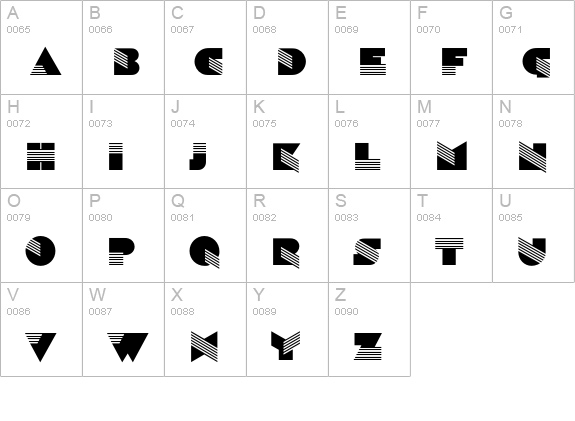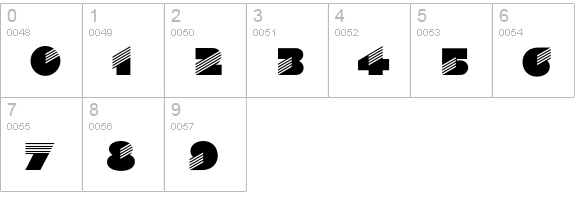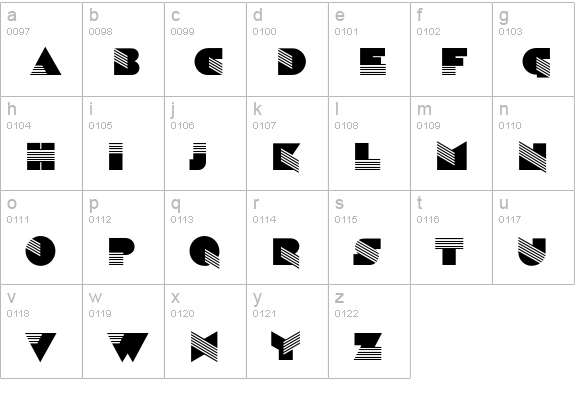
SinaloaEF Font Details
Introducing SinaloaEF, a stunning and versatile font that combines elegance with a modern twist. With its intricate letterforms and fluid strokes, SinaloaEF is perfect for adding a touch of sophistication to any design project. Whether you're creating a logo, designing a website, or crafting a beautiful invitation, this font is sure to make a lasting impression. SinaloaEF offers a unique blend of classic and contemporary aesthetics, making it suitable for a wide range of applications. Its graceful curves and clean lines lend themselves to both bold headlines and delicate details. This font effortlessly captures attention and delivers a sense of professionalism and style. But what truly sets SinaloaEF apart is the fact that it is available for free. Yes, you read that right! This exceptional font can be downloaded at absolutely no cost from FontsMarket.com. We believe that creativity should not be limited by financial barriers, and that's why we are thrilled to offer SinaloaEF as a freely accessible resource for designers, artists, and enthusiasts alike. When you download SinaloaEF, you're not only obtaining a remarkable font; you're also gaining the freedom to create without constraints. With its extensive character set and multiple stylistic alternates, SinaloaEF provides endless possibilities for expressing your unique vision. Whether you're aiming for a sleek and modern look or a vintage-inspired design, this font has got you covered. So why wait? Unlock your creativity and elevate your designs with SinaloaEF. Download this remarkable font for free at FontsMarket.com and experience the power of unlimited possibilities. Let SinaloaEF be the perfect companion for your next creative endeavor, and watch your designs come to life with elegance and flair.